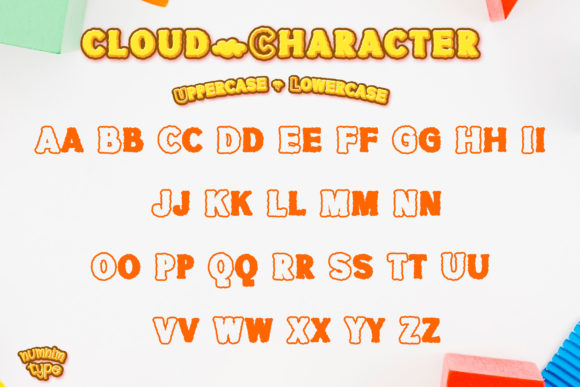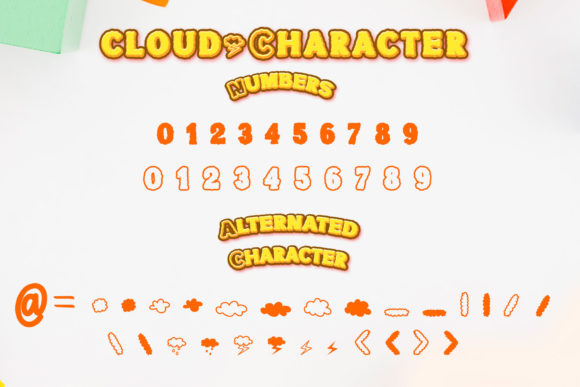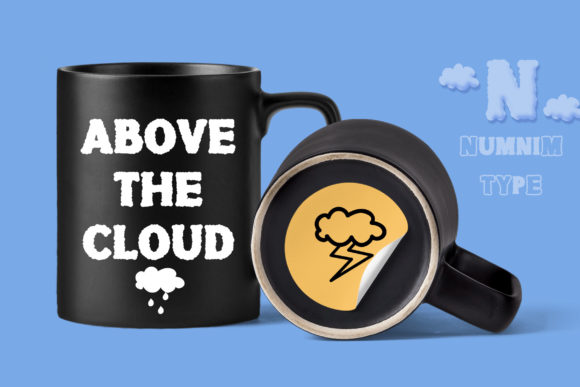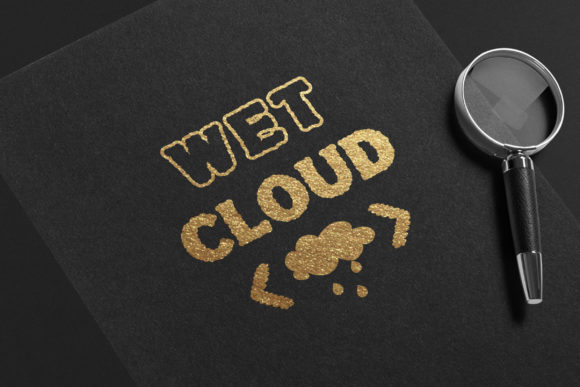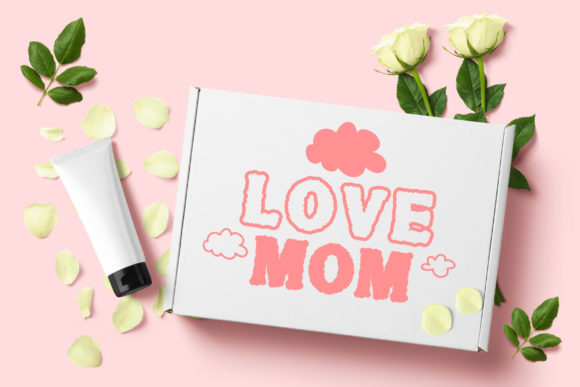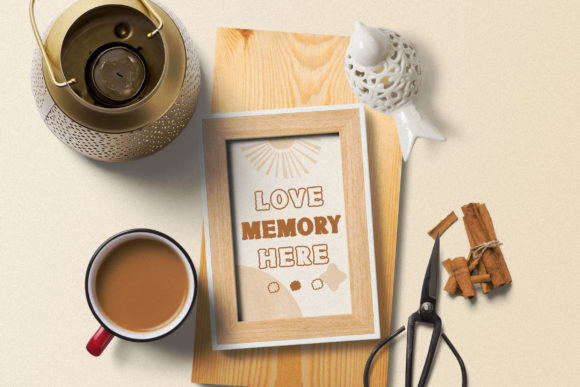
Introducing Cloud Font: The Playful and Authentic Display Font for Children and Educators
Are you a designer, educator, or parent looking for a fun and engaging font to add a touch of personality to your children’s activity sheets, school projects, or educational materials? Look no further than Cloud Font, a cute, thick lettered, and fluffy display font that’s sure to delight kids and adults alike.
What is Cloud Font?
Cloud Font is a unique and charming display font designed to evoke a sense of playfulness and authenticity. Its thick, fluffy letters are reminiscent of puffy white clouds on a sunny day, making it the perfect choice for any project aimed at kids or educators. Whether you’re creating activity sheets, posters, or presentations, Cloud Font is sure to add a touch of whimsy and fun to your designs.
Key Features of Cloud Font
- Cute and Playful Design: Cloud Font features a distinctive, hand-drawn design that’s both cute and playful. Its fluffy letters are sure to capture the attention of kids and add a touch of personality to your designs.
- Thick and Easy to Read: The thick, bold letters of Cloud Font make it easy to read, even for young children. This makes it an ideal choice for activity sheets, worksheets, and other educational materials.
- Authentic and Whimsical: Cloud Font has a unique, hand-crafted feel that’s both authentic and whimsical. It’s perfect for creating designs that require a personal touch.
Uses for Cloud Font
Cloud Font is a versatile font that can be used in a variety of creative projects, including:
- Children’s Activity Sheets: Add a touch of fun and playfulness to your children’s activity sheets, puzzles, and games with Cloud Font.
- School Projects: Use Cloud Font to create eye-catching posters, presentations, and reports for school projects.
- Educational Materials: Cloud Font is perfect for creating educational materials, such as worksheets, flashcards, and educational posters.
- Crafting and DIY Projects: Add a personal touch to your crafting and DIY projects, such as scrapbooking, card making, and journaling.
Why Choose Cloud Font?
With so many fonts to choose from, why should you choose Cloud Font for your next project? Here are just a few reasons:
- Unique and Eye-Catching: Cloud Font is a unique and eye-catching font that’s sure to capture the attention of kids and adults alike.
- Easy to Read: The thick, bold letters of Cloud Font make it easy to read, even for young children.
- Versatile: Cloud Font can be used in a variety of creative projects, from children’s activity sheets to educational materials.
Tips for Using Cloud Font
Here are a few tips for using Cloud Font in your next project:
- Use it Sparingly: Cloud Font is a bold and eye-catching font, so use it sparingly to avoid overwhelming your design.
- Pair it with Other Fonts: Cloud Font pairs well with other fonts, such as sans-serif fonts or script fonts. Experiment with different font combinations to find the perfect look for your project.
- Experiment with Colors: Cloud Font looks great in a variety of colors, from bright and bold to soft and pastel. Experiment with different colors to find the perfect look for your project.
In conclusion, Cloud Font is a unique and charming display font that’s perfect for any project aimed at kids or educators. Its cute, thick lettered, and fluffy design makes it a great choice for children’s activity sheets, school projects, and educational materials. With its ease of use, versatility, and eye-catching design, Cloud Font is sure to become a favorite among designers, educators, and parents alike.